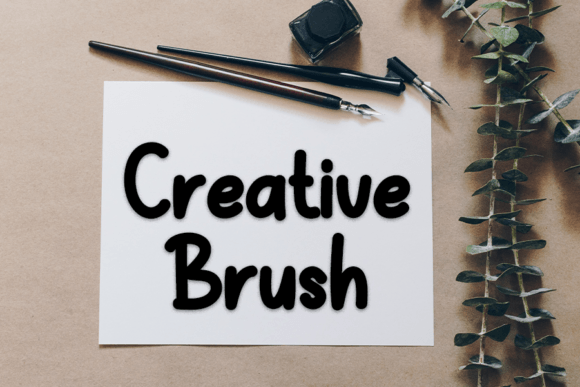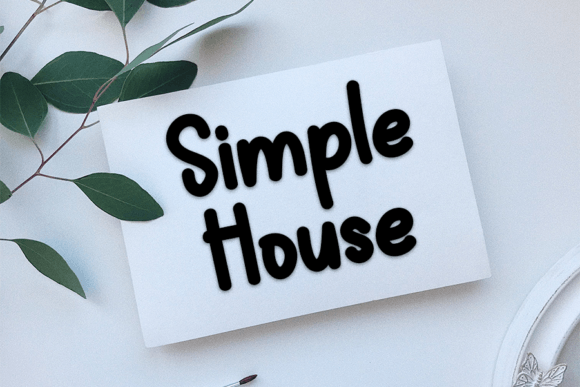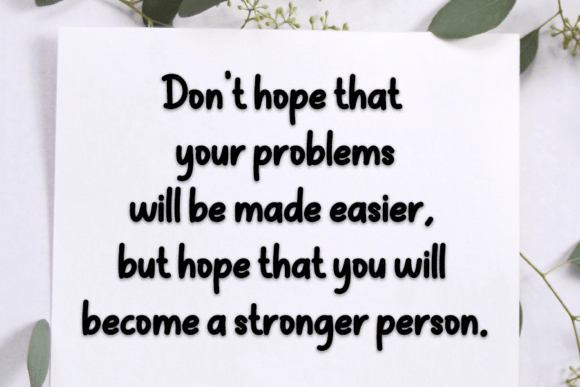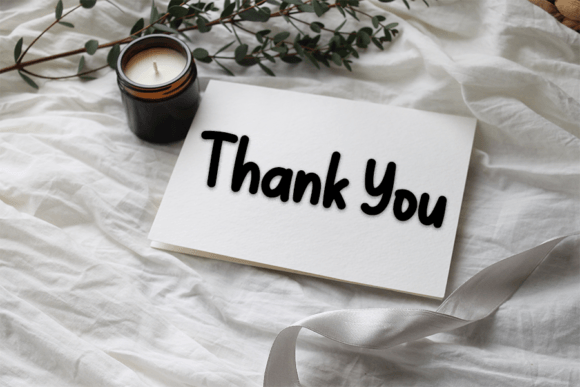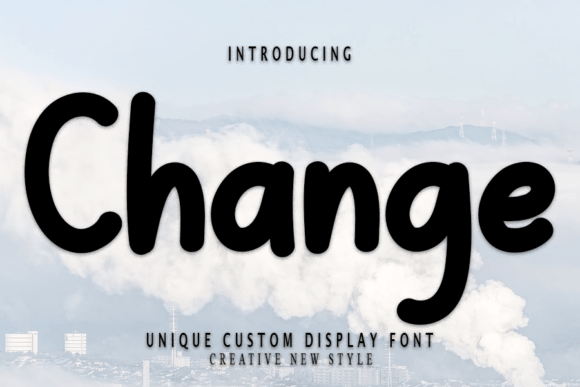
Give Your Designs a Fresh Twist with Change Font
Do you remember that moment when a spark of creativity hits you, and you can’t wait to bring your idea to life? For designers, it’s that rush of excitement when a new font comes along and challenges the status quo. That’s exactly what Change Font does – it injects a dose of modernity and playfulness into your work, making it stand out from the crowd.
Change Font is a versatile display font designed to elevate your crafts, digital designs, presentations, and greeting cards. With its sleek and modern aesthetic, it’s the perfect addition to any creative project. Whether you’re a seasoned designer or a DIY enthusiast, Change Font is sure to be a valuable asset in your design toolkit.